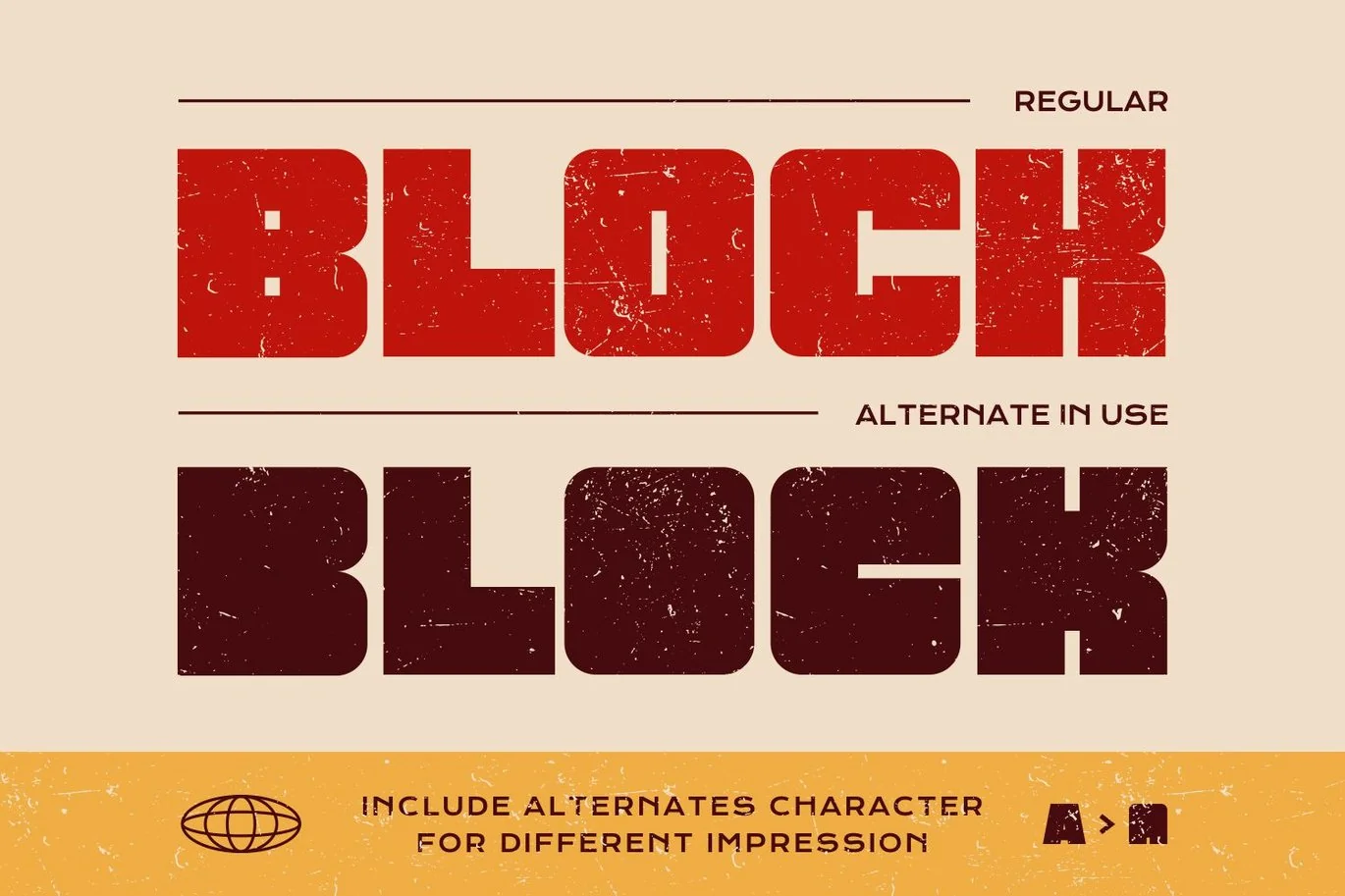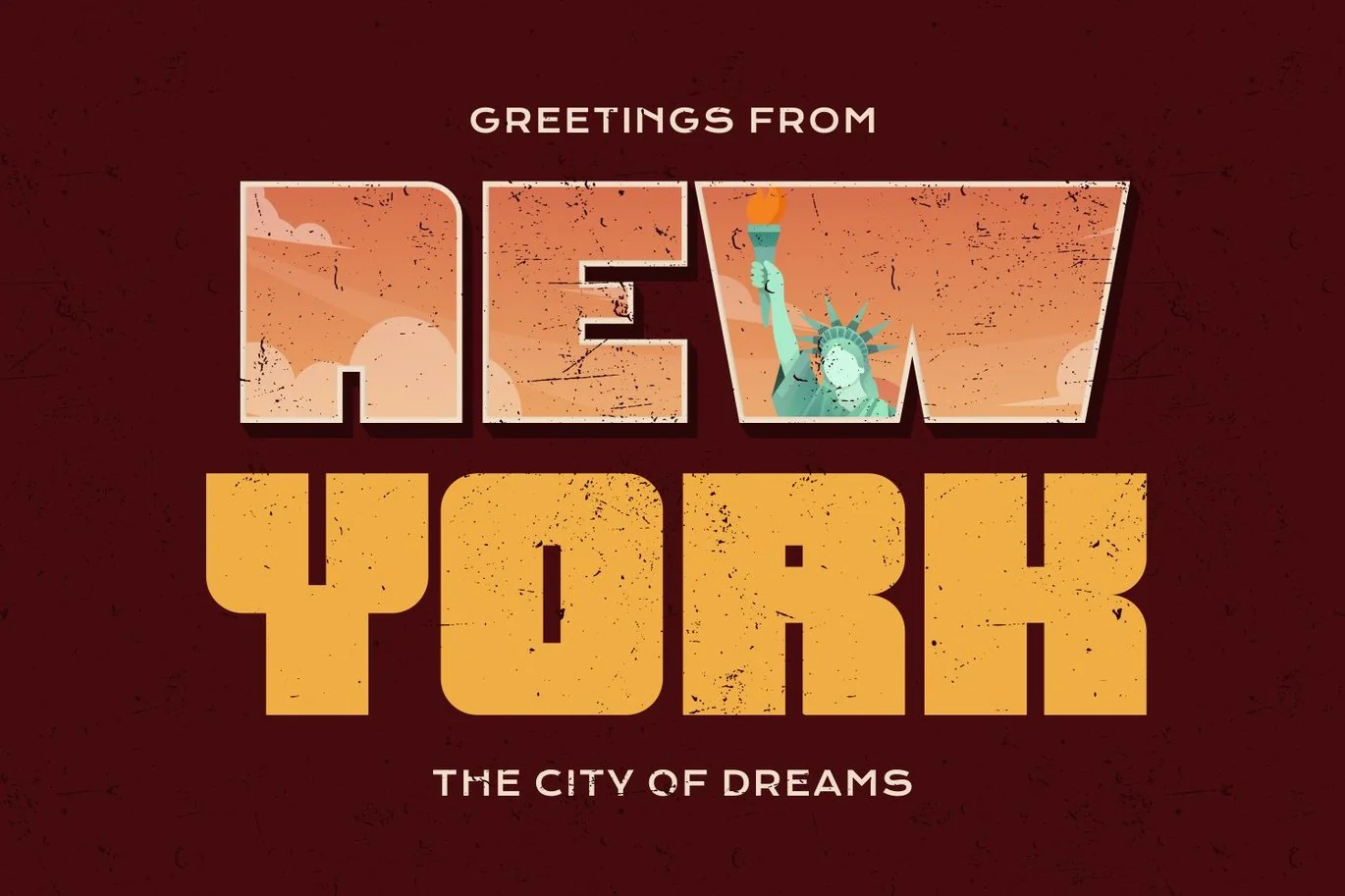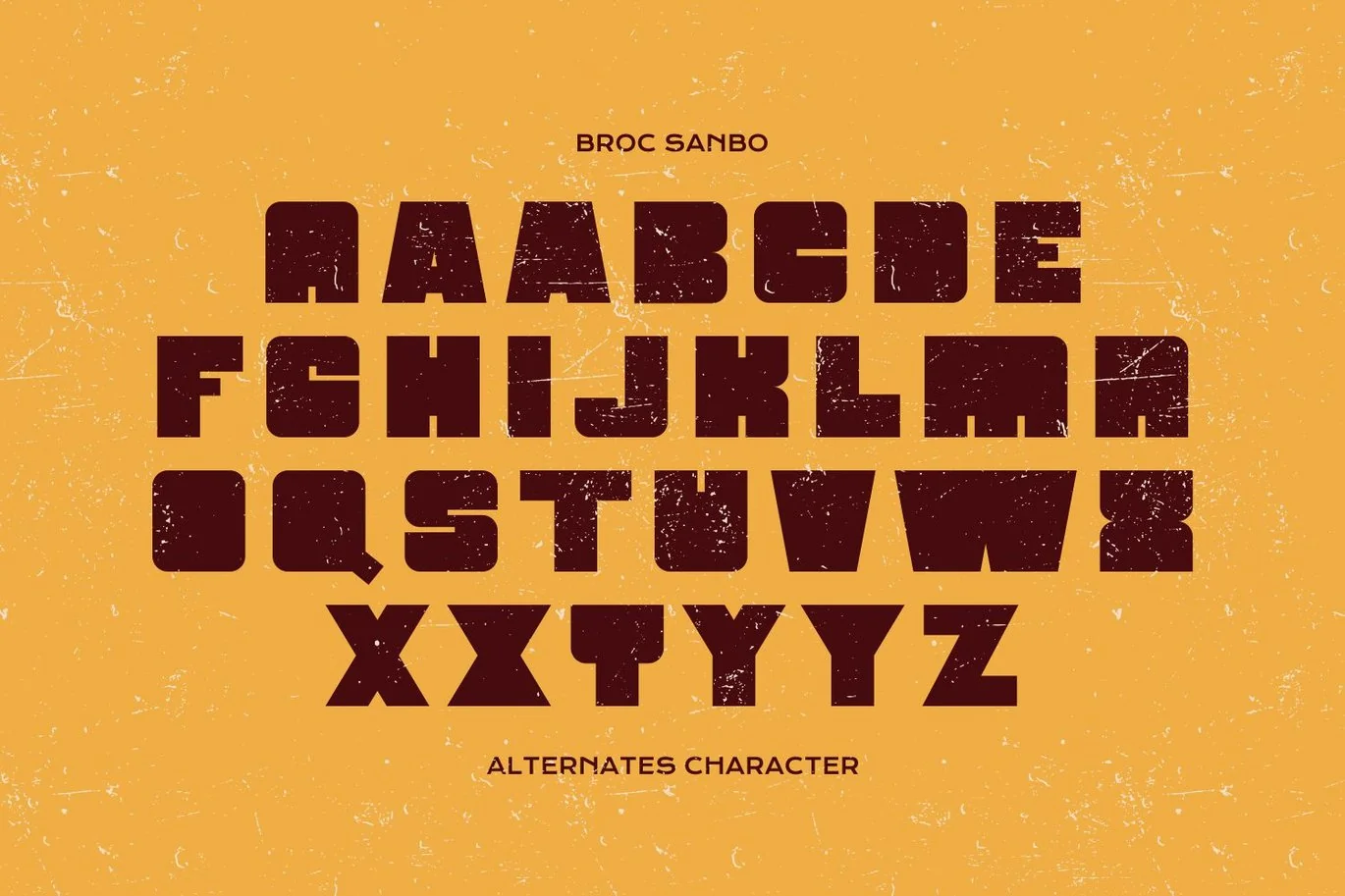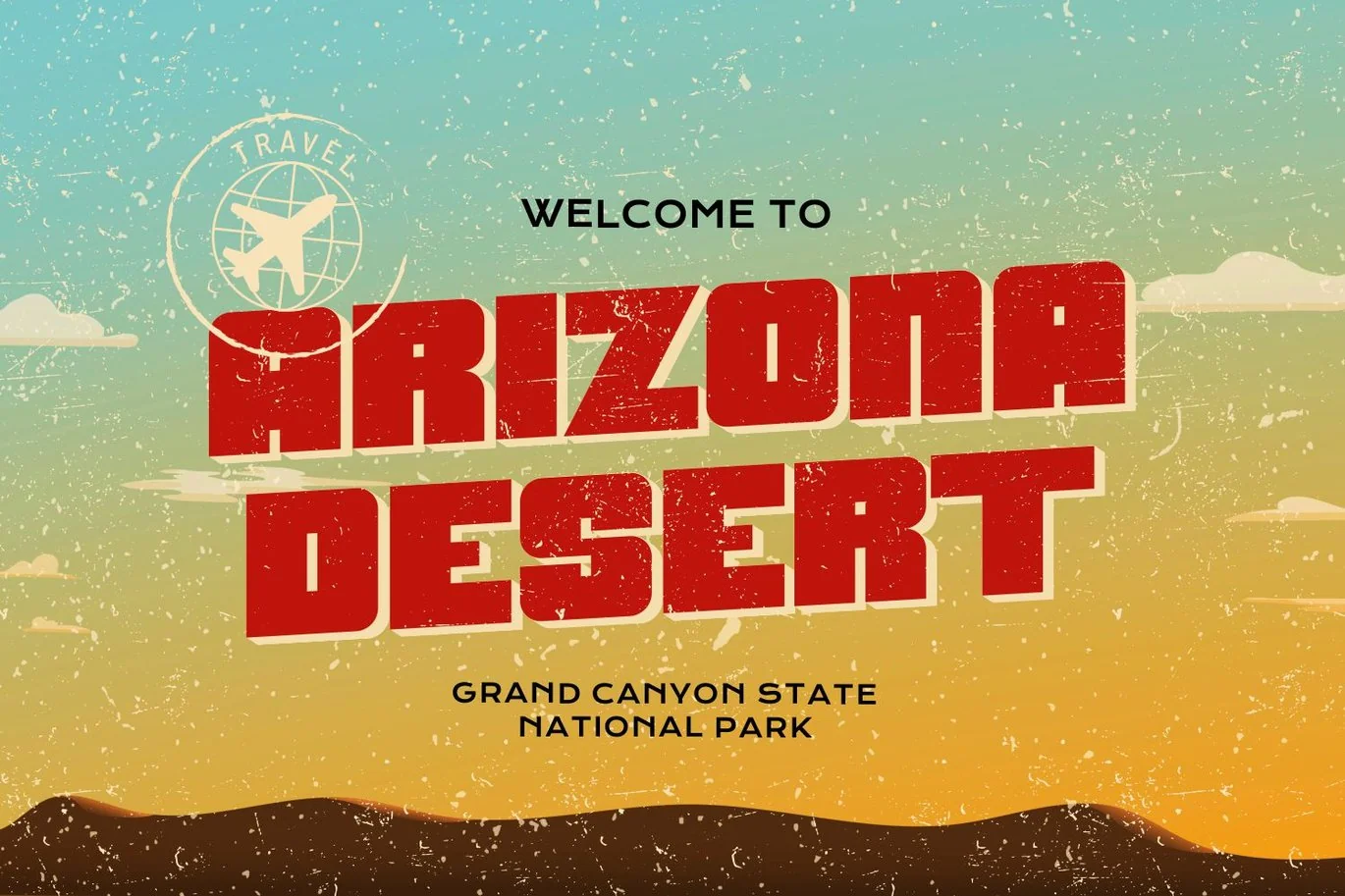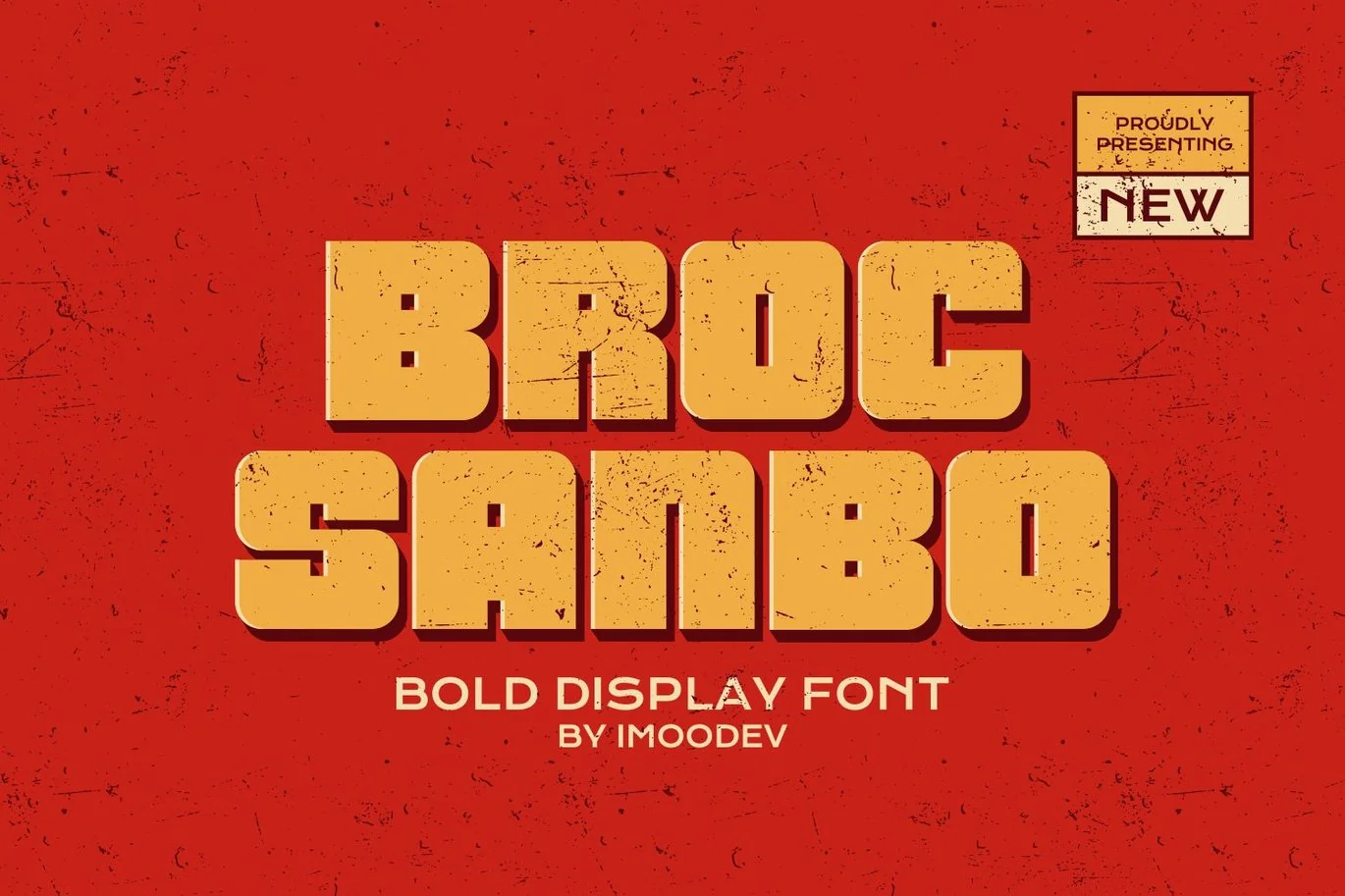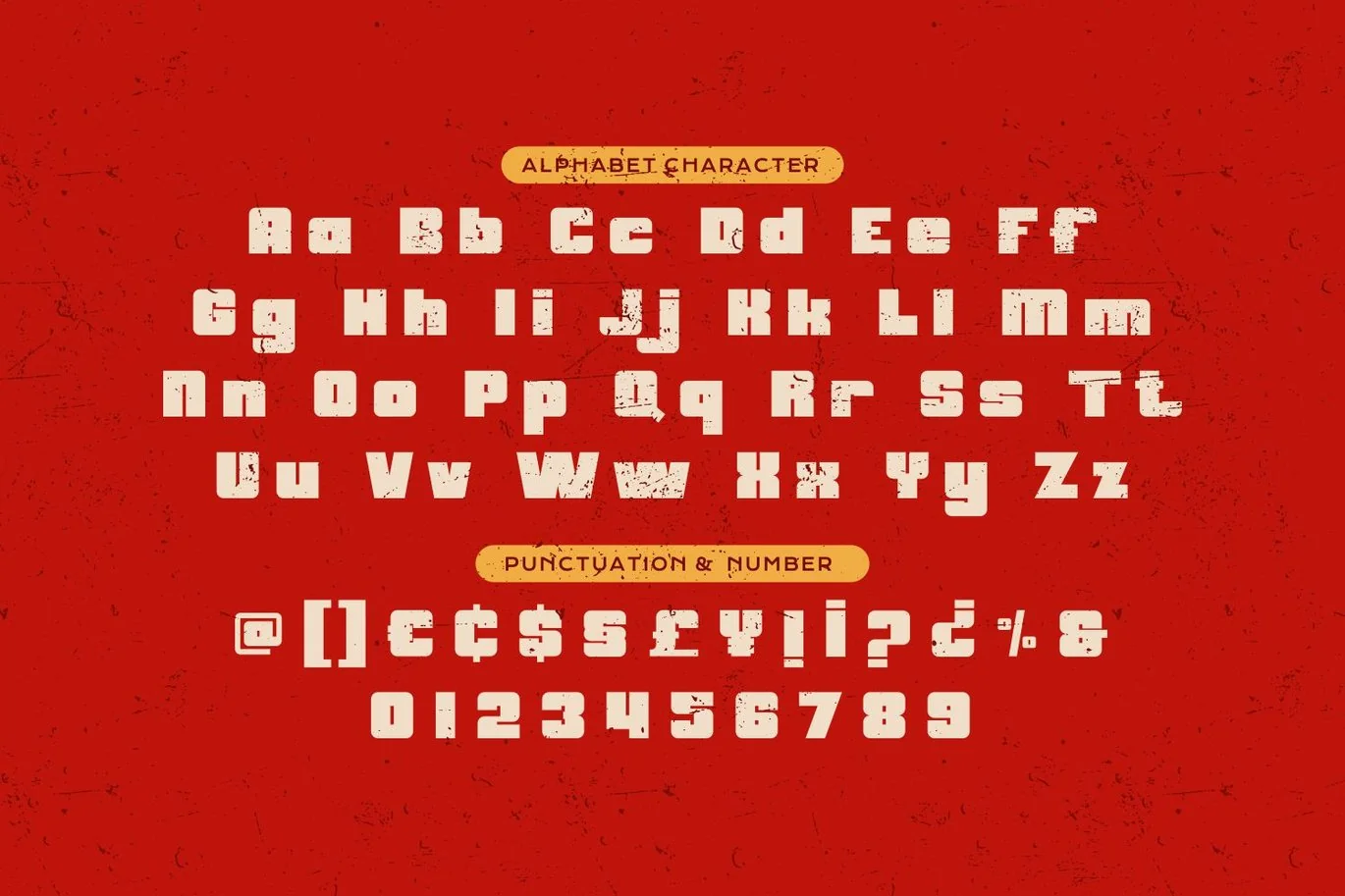
Broc Sanbo – Bold Retro Font
‘Broc Sanbo’ extra-bold display font is perfect for your heavy titles and headlines. This typeface adds a bold and iconic style to your artworks, both retro and modern. It’s perfect for any graphic design or typography project that requires a solid mood. A font with a big fat personality that will make all your artistic creations come alive with style and weight.
The edges of the characters are a lot more ‘boxy’ than your average font which gives off a strong, industrial feel.
Really great font to make it easier for you creative work such as — branding, film titles, packaging, and any advertising. Use this display font to add that special retro or vintage touch to any design idea you think of!